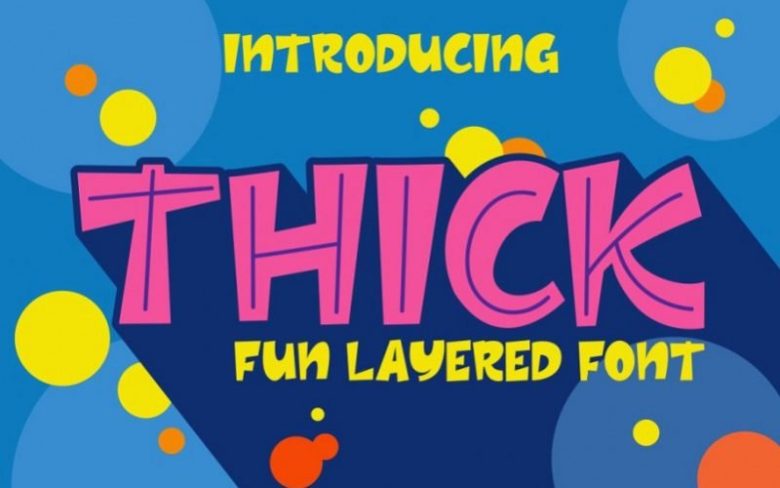
Thick Display Font
Thick Display Font is the perfect font for all your fun designs and also for HALLOWEEN PARTY POSTER. The main font file is equipped with ordinary characters, as well as more than 350 glyphs to support most Latin-based languages.